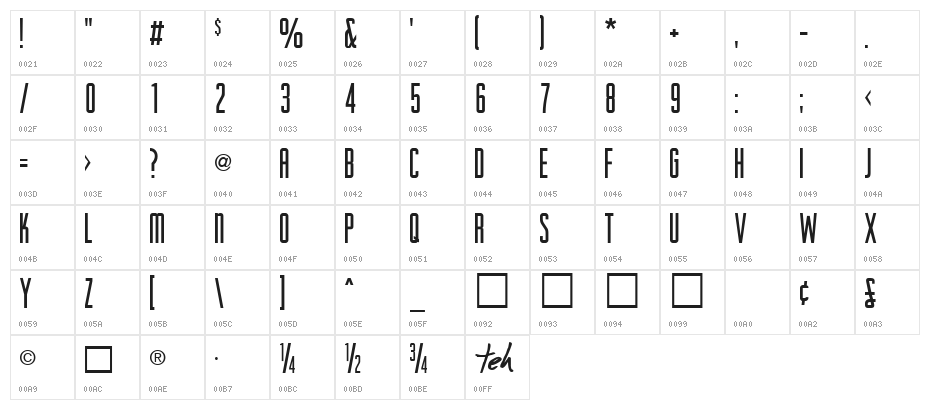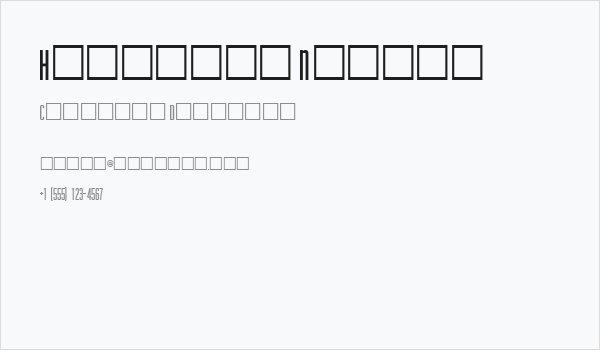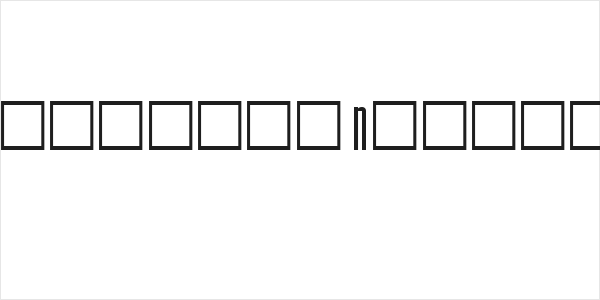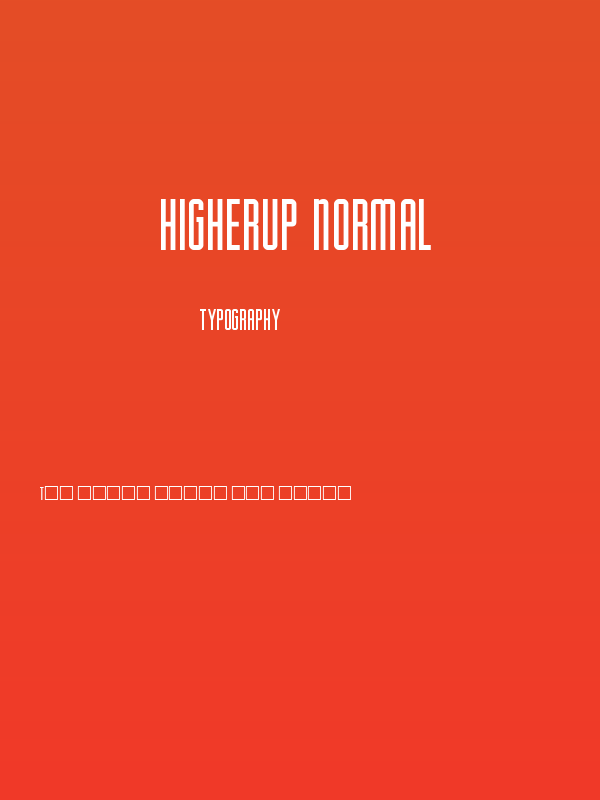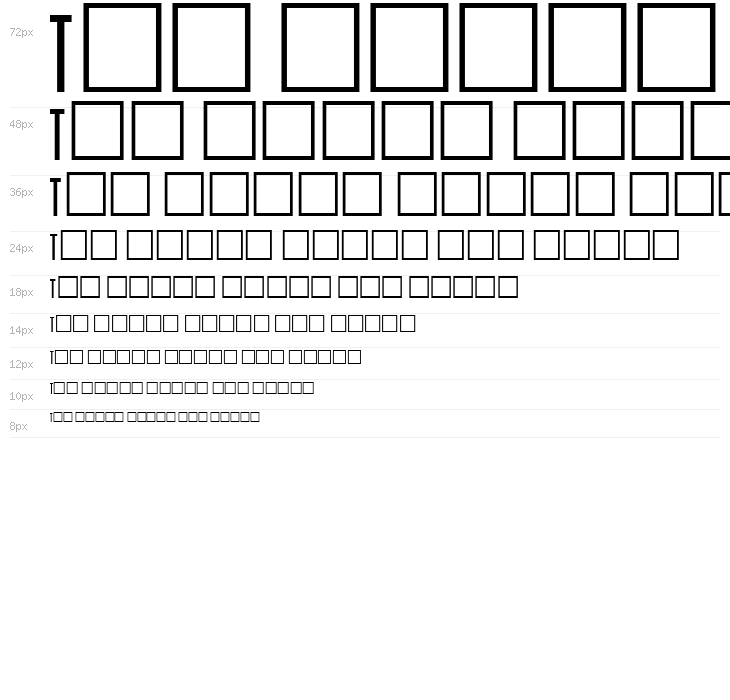
Higherup Normal Font
Higherup Normal Description
This font features a tall, condensed structure with a modern and sleek appearance. The uppercase letters are elongated, giving a sense of height and elegance. The numerals are consistent with the overall style, maintaining the same vertical emphasis. Special characters are designed to complement the alphabet, ensuring a cohesive look across all text elements. The font's clean lines and uniform stroke width make it suitable for contemporary design projects.
Proposed ProjectsIdeal for headlines, posters, and branding projects where a modern and impactful look is desired.